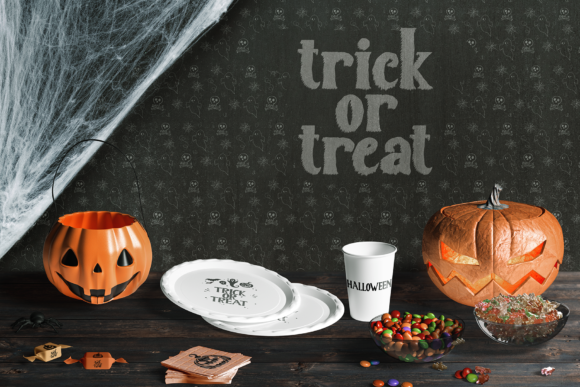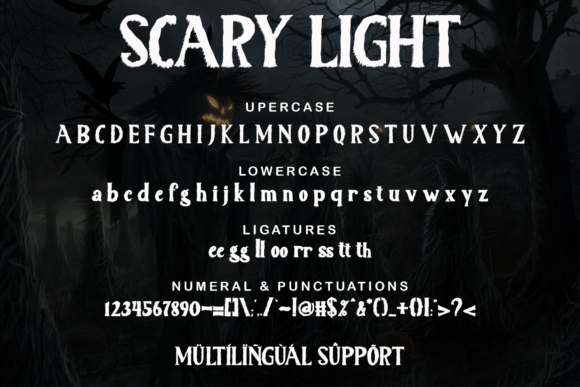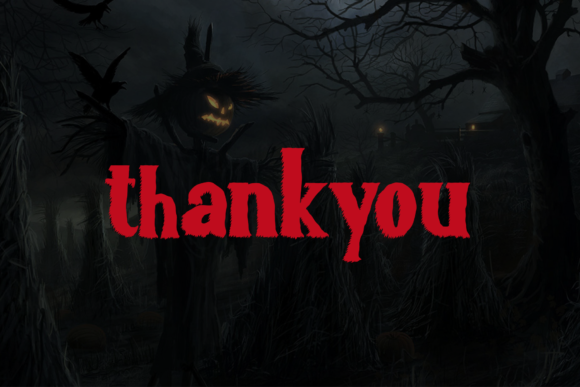
Introduction to Scary Light Font
As a designer, have you ever found yourself stuck on a project, searching for that perfect font to bring your creative vision to life? Maybe you’re working on a spooky Halloween-themed project and need a display font that screams “creepy” – without screaming “boring”.
I’ve been there too, and that’s why I’m excited to share with you one of my favorite design resources: the Scary Light Font. This free download is a game-changer for any designer looking to add a touch of eeriness to their next project. With its transparent background and high-quality design, Scary Light Font is the perfect addition to any creative project.
Key Features of Scary Light Font
- High-quality, unique font design with a spooky and eerie feel, perfect for creative projects.
- Unique characteristics include a mix of bold and thin lines, creating a dynamic and unsettling visual effect.
Honest Review: Scary Light Font
As a designer, I’m always on the lookout for unique and high-quality design resources to elevate my creative projects. Recently, I came across the Scary Light Font, and I’m excited to share my thoughts on this intriguing font.
What works well: ✨ The Scary Light Font has a bold, playful personality that’s sure to add some edge to your designs. Its transparent background makes it easy to layer and combine with other fonts or graphics. The font is also highly customizable, allowing you to adjust the color, size, and spacing to suit your project’s needs.
Some limitations: ⚠️ While the Scary Light Font is a great addition to any design arsenal, it may not be suitable for projects that require a more traditional or formal tone. Additionally, the font’s unique style may not appeal to everyone, so it’s essential to use it thoughtfully and in context.
Overall, I’m impressed with the Scary Light Font’s potential and versatility. As a free download, it’s a valuable resource for designers looking to add some creativity and whimsy to their projects.
Pros:
- Unique, bold personality
Cons:
- May not be suitable for formal or traditional projects
- Style may not appeal to everyone
Scary Light Font
The Scary Light Font is a versatile design resource perfect for adding a spooky or eerie feel to your creative project. With its unique and eye-catching design, this font is ideal for horror-themed projects, Halloween decorations, or any other design that requires a touch of darkness.
Tips for Getting the Most Out of Scary Light Font
To get the most out of the Scary Light Font, follow these tips:
- Combine the font with other design elements, such as images or graphics, to create a spooky atmosphere.
The Scary Light Font is perfect for:
- Horror-themed projects and Halloween decorations.
- Designing spooky or eerie websites, social media graphics,
Alternatives to Scary Light Font
1. Pixelated
Pixelated is a high-quality, pixel art-inspired font that can add a unique touch to your creative project. It’s ideal for use in retro-style video games, pixel art designs, and other projects that require a nostalgic feel.
Compared to Scary Light Font, Pixelated has a more pixelated and blocky appearance, making it perfect for projects that require a retro aesthetic.